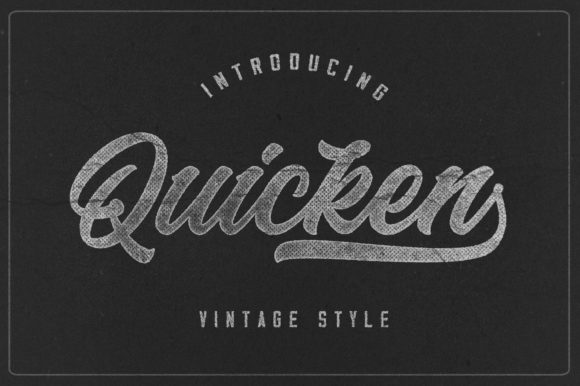
Prepare yourself to embark on a journey of artistic exploration with Quicken Font, a script font family that exudes vintage charm and timeless elegance. Step into a world where creativity meets nostalgia, where every letter is a brushstroke of history.
Quicken Font is not just a collection of letters; it's an invitation to express yourself in a unique and captivating way. Its retro style adds a touch of whimsy and charm to any project, whether you're designing logos, invitations, or crafting heartfelt messages.
With its clean and crisp lines, Quicken Font offers a versatile canvas for your imagination. Its delicate curves and flowing lines dance across the page, evoking a sense of longing and nostalgia. Embrace the beauty of the past as you create designs that resonate with a timeless appeal.
Let Quicken Font be your muse as you craft stunning branding materials that leave a lasting impression. Its bold and confident strokes command attention, ensuring your message stands out from the crowd. From eye-catching headlines to captivating logos, Quicken Font is the perfect choice for businesses looking to make a statement.
Step into the world of Quicken Font and let your creativity soar. With its endless possibilities and captivating charm, Quicken Font is the key to unlocking a world of artistic expression.